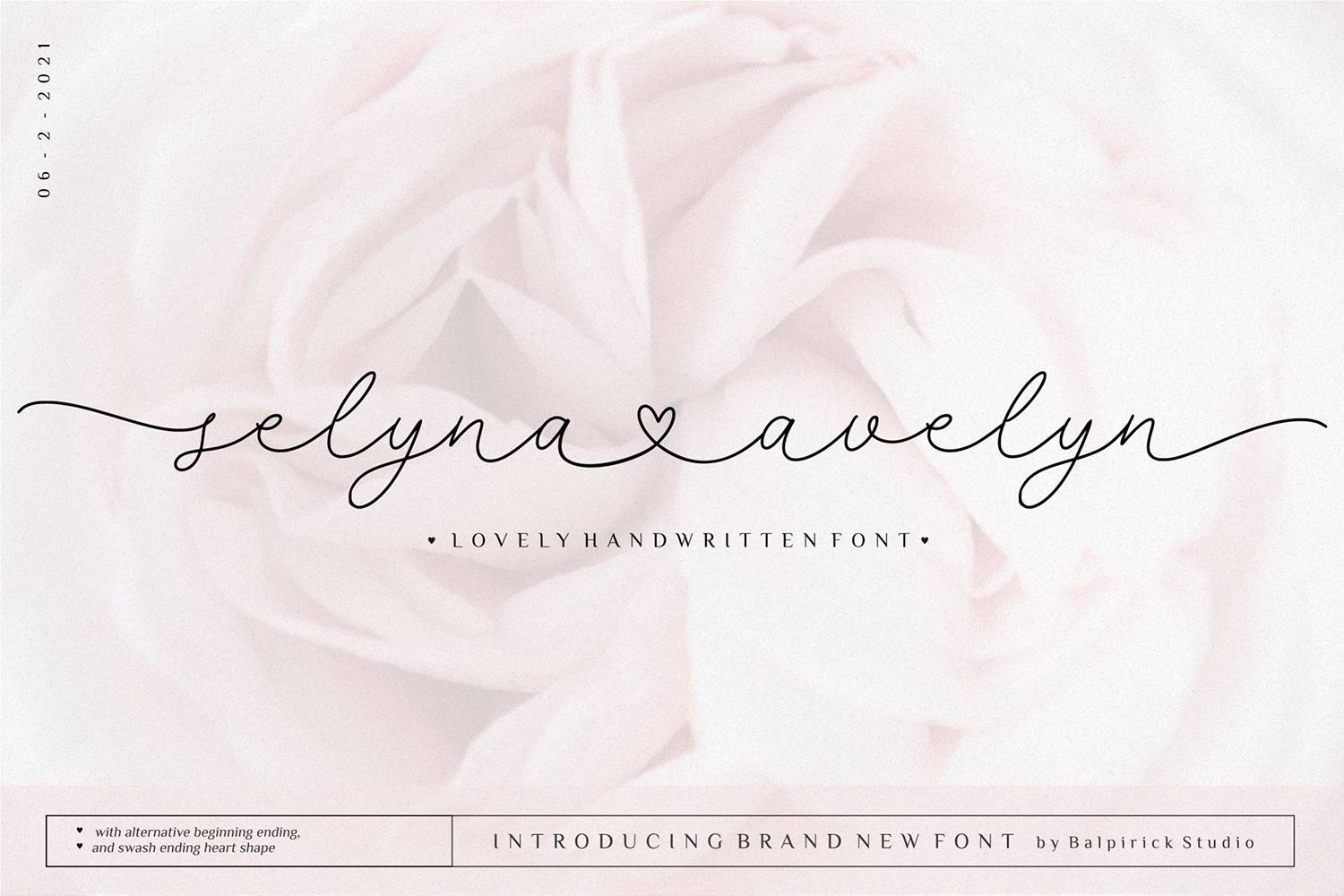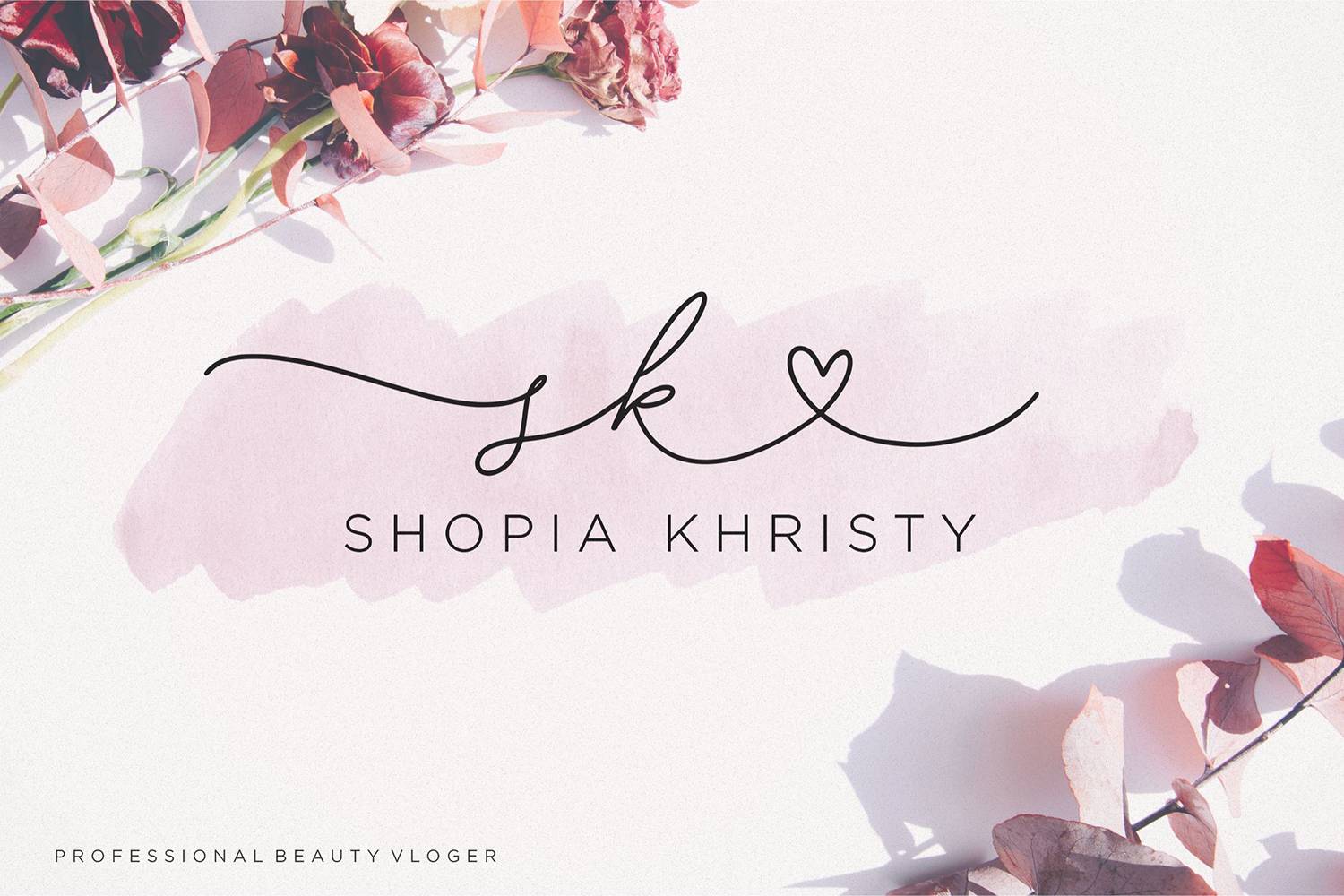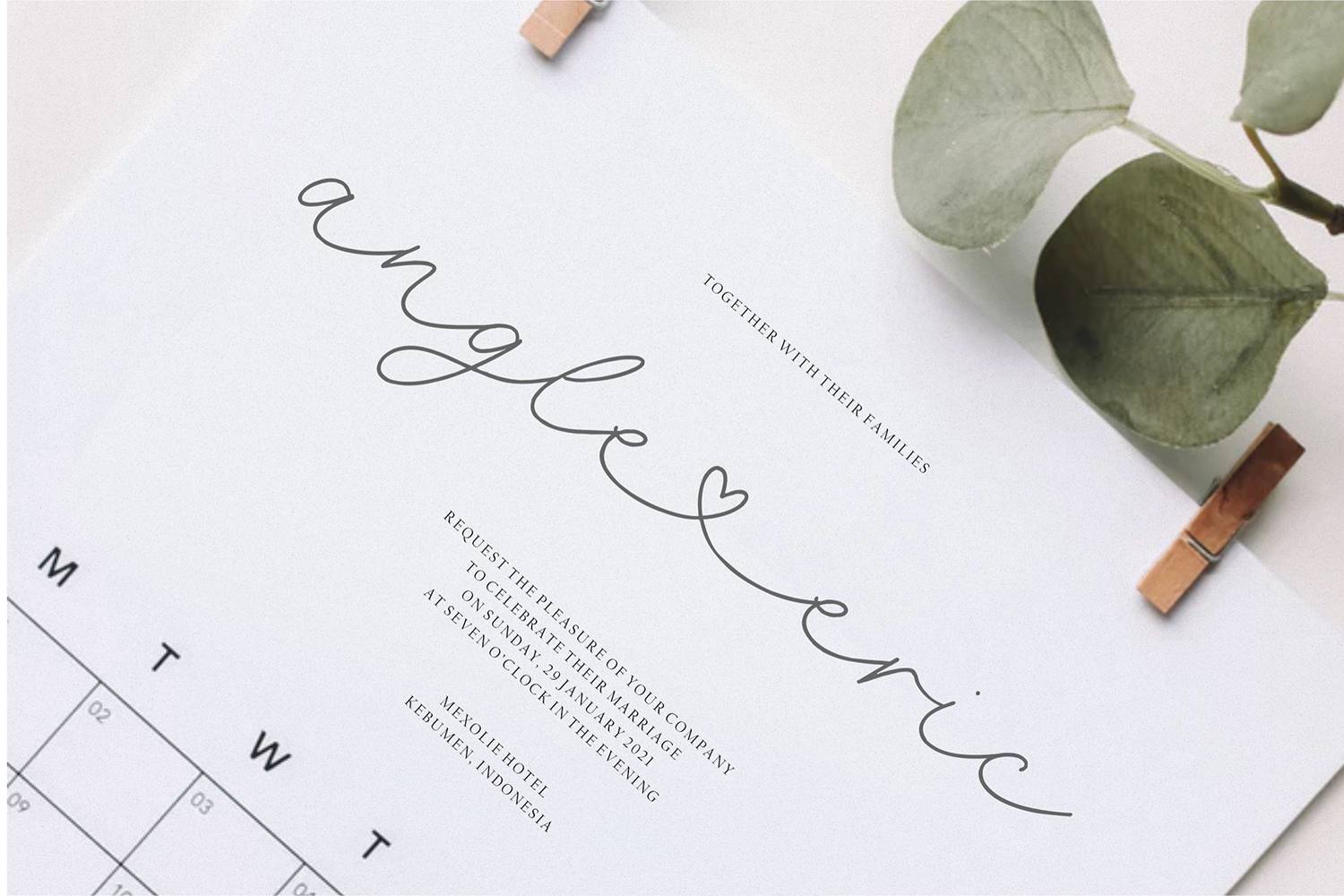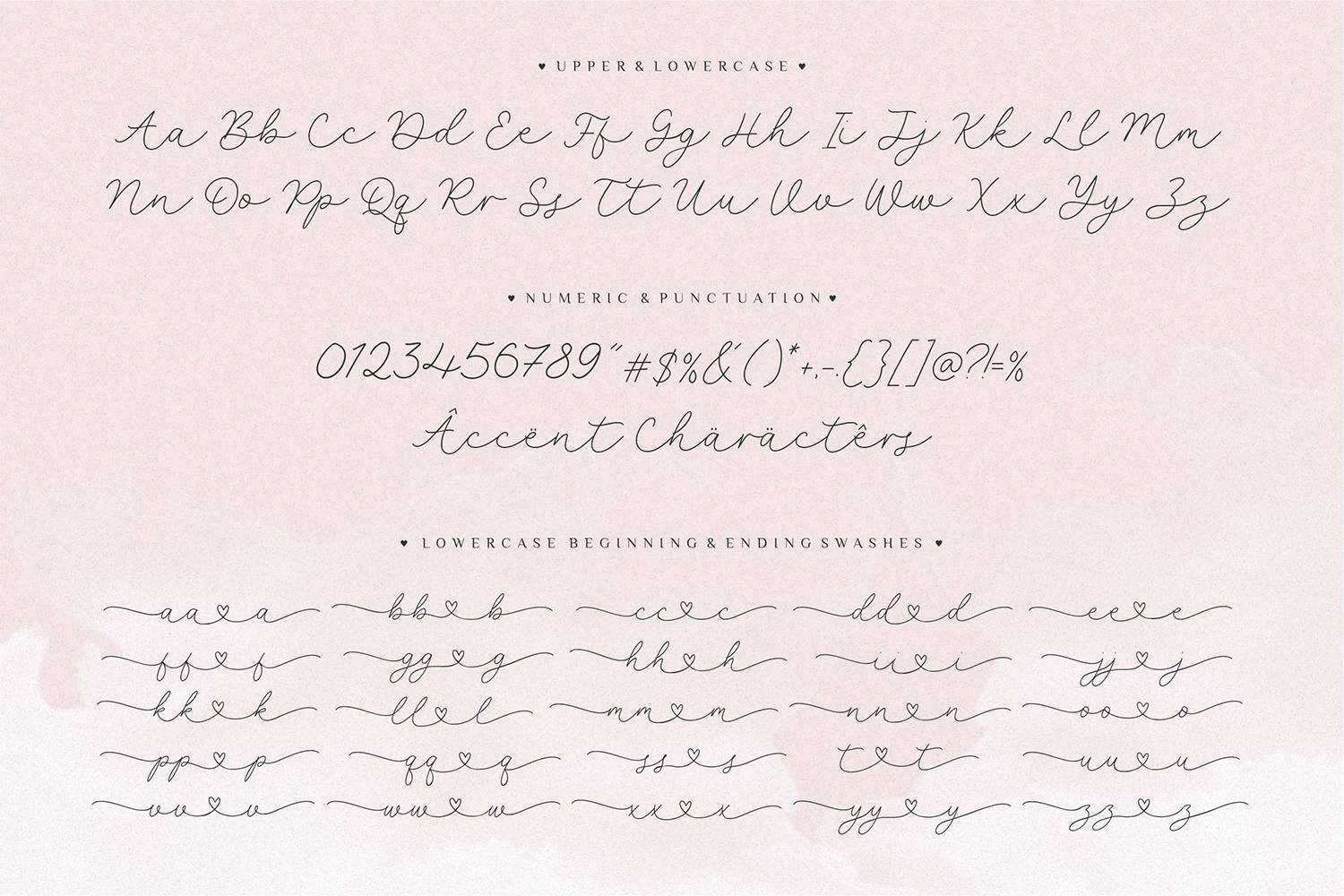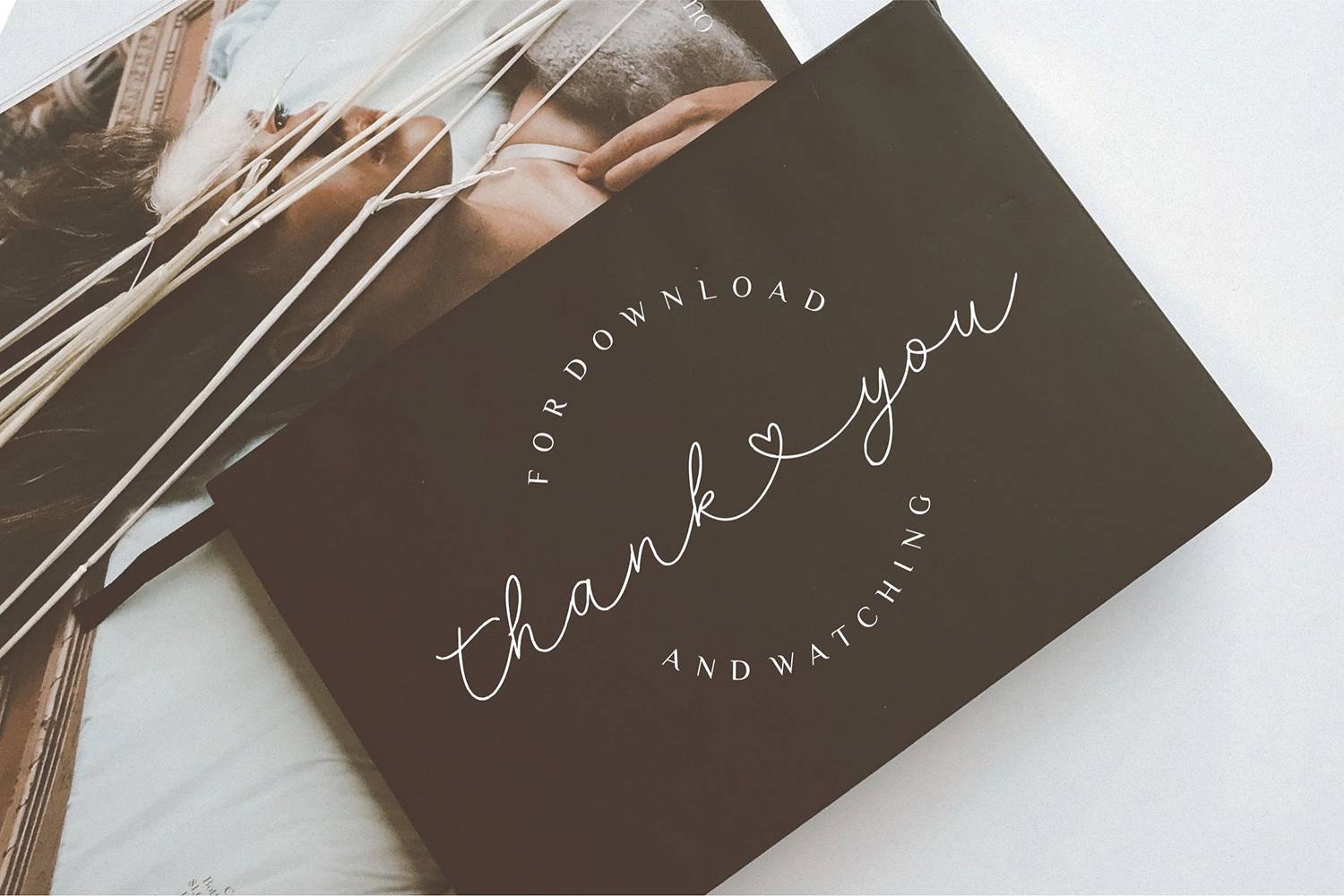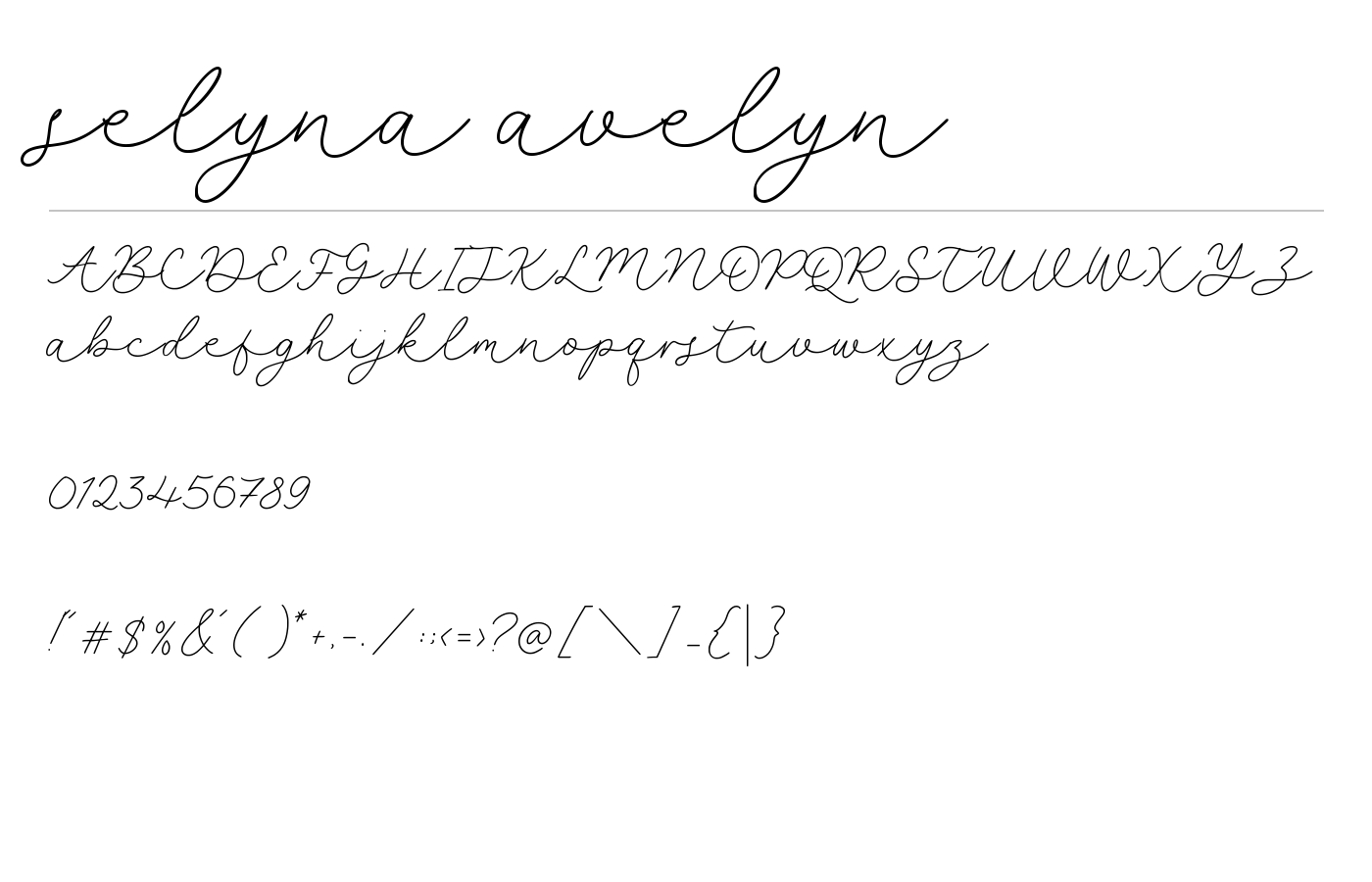
Selyna Avelyn is a delicate, elegant script font with a slender, handwritten feel. Its light stroke weight and flowing letterforms create a graceful and airy impression, perfect for adding a personal, refined touch to branding, invitations, or stylish editorial projects. This font’s sophisticated yet approachable style makes it ideal for fashion, beauty, and lifestyle designs that seek a modern, feminine charm.
Selyna Avelyn Font
About Selyna Avelyn Font